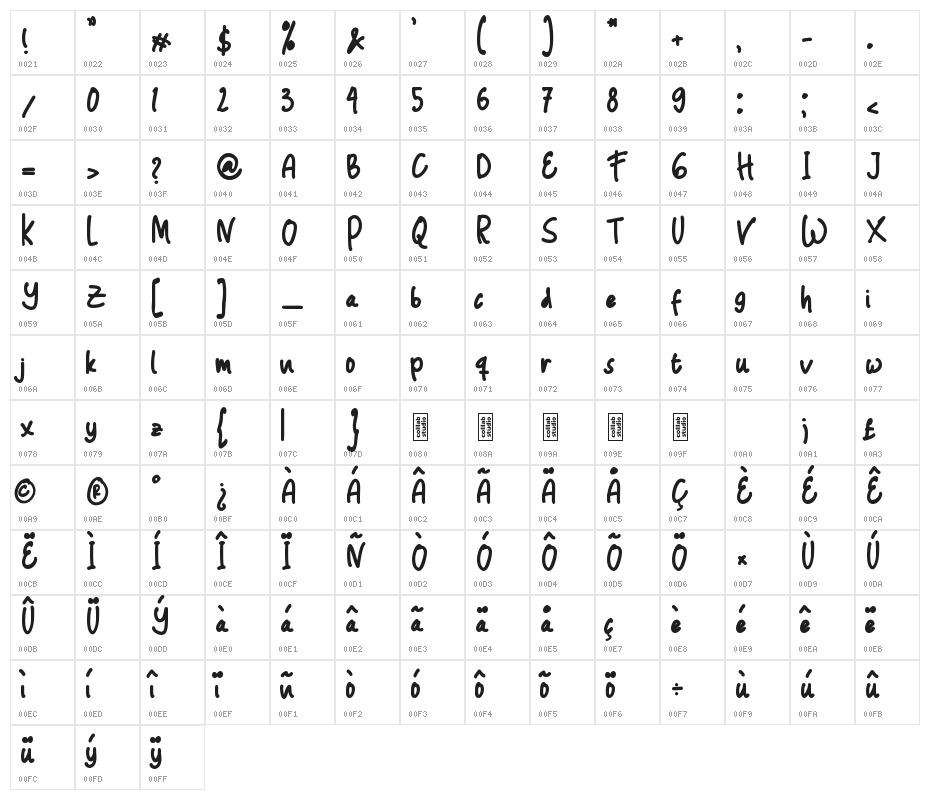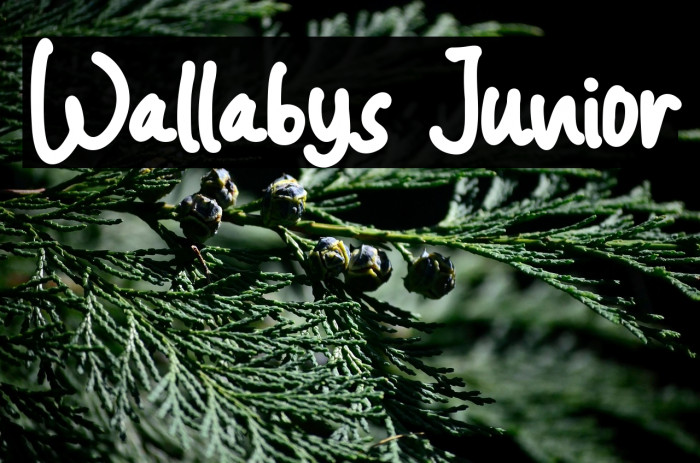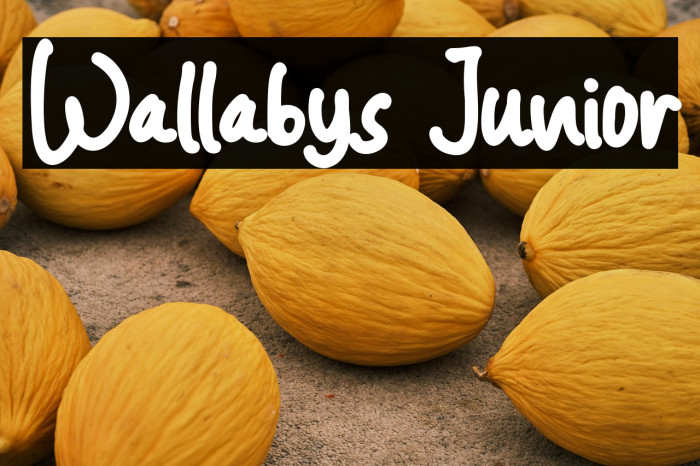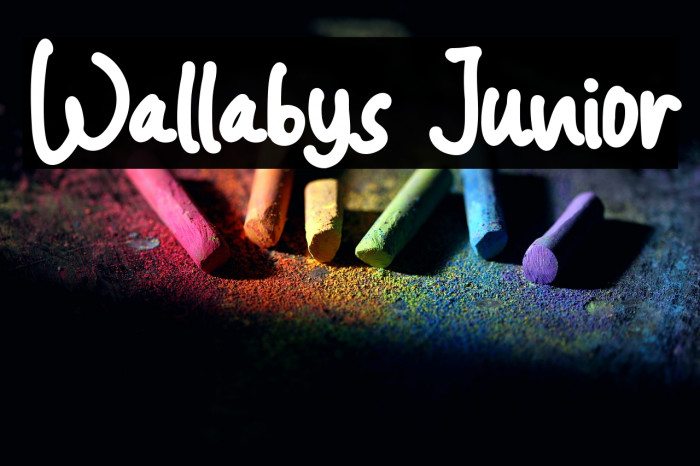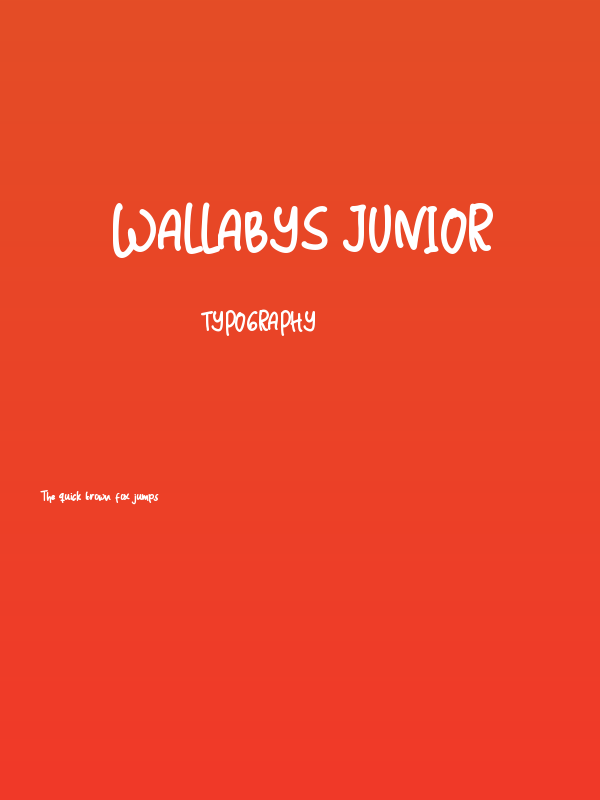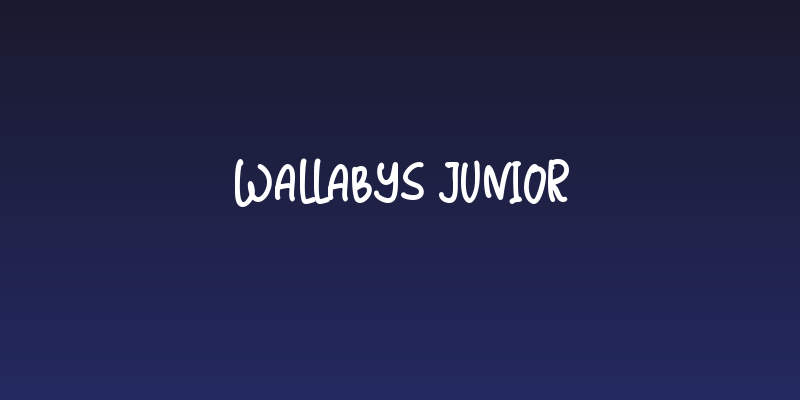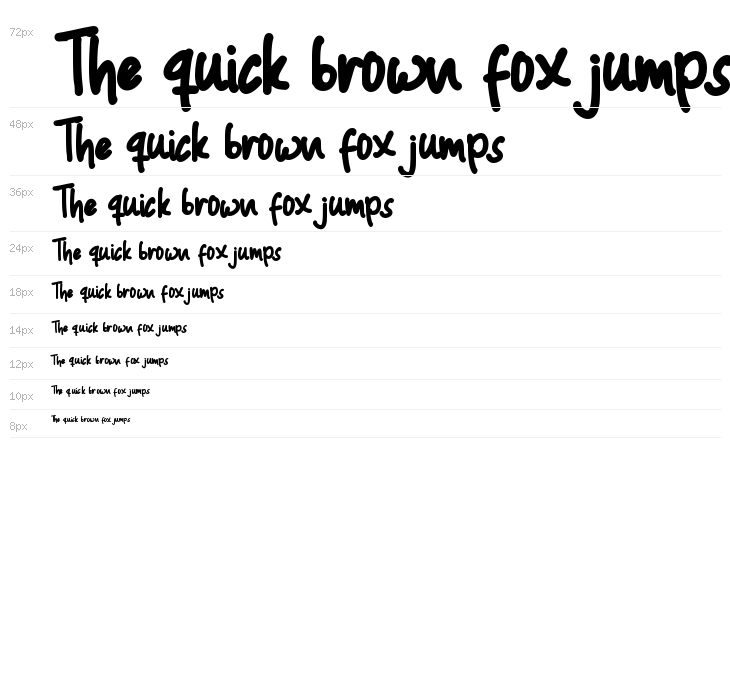
Wallabys Junior Font
Wallabys Junior Description
This playful and energetic font features a handwritten style with bold, rounded strokes that convey a sense of friendliness and approachability. The characters are slightly irregular, adding to the casual and informal feel. Uppercase and lowercase letters maintain a consistent style, with a noticeable bounce and flow that mimics natural handwriting. The numbers and special characters are equally expressive, fitting seamlessly with the overall design. This font's unique charm makes it ideal for projects that require a personal touch or a fun, lively aesthetic.
| Use Case | Headlines, Logos, Informal text |
| Proposed Projects | Great for children's books, greeting cards, playful branding, and social media graphics. |